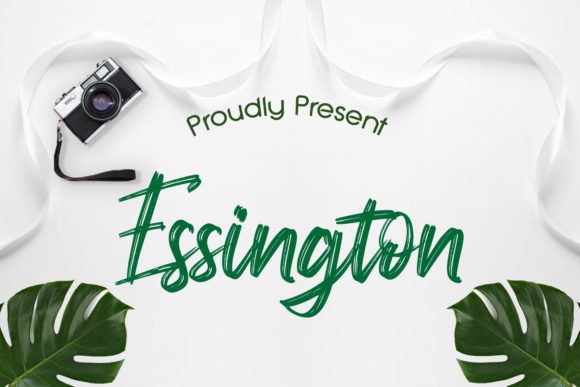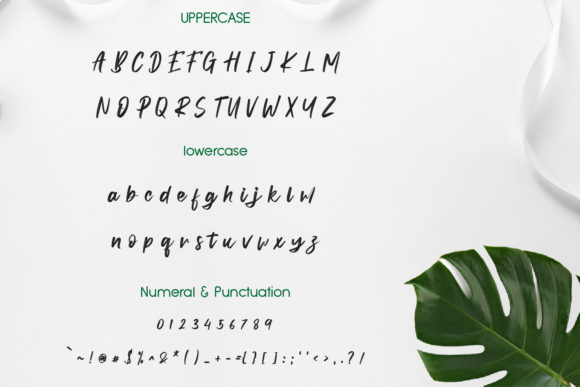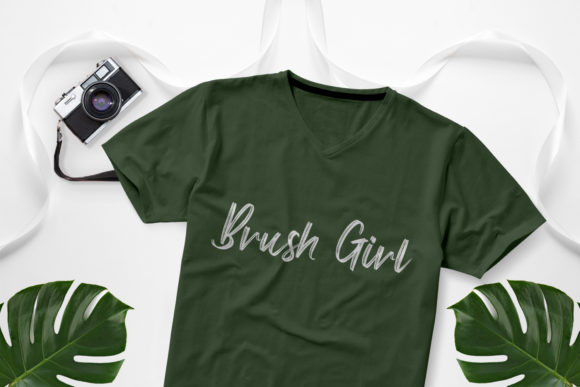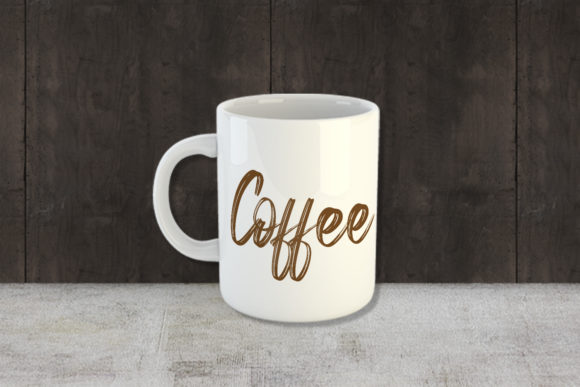
About Essington Font
Essington is a lovely, modern brushed handwritten font. This versatile script font has a wide spectrum of applications ranging from greeting cards to headlines and is guaranteed to add a romantic feel to your next project.